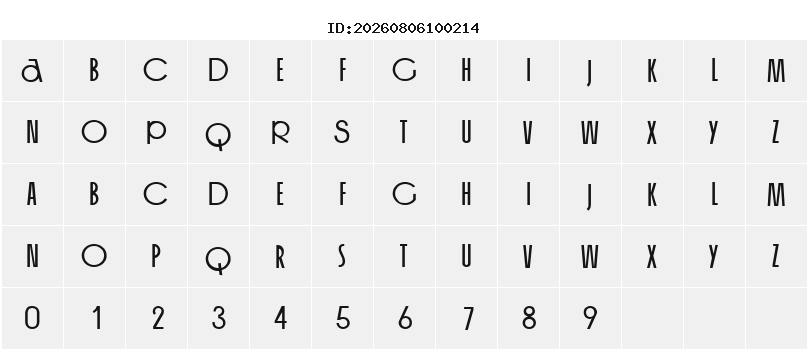
• Font Name: Organ
Organ.ttf is a modern, elegant sans-serif font designed for ultimate readability and visual harmony. Perfect for branding, headlines, web design, and print materials.